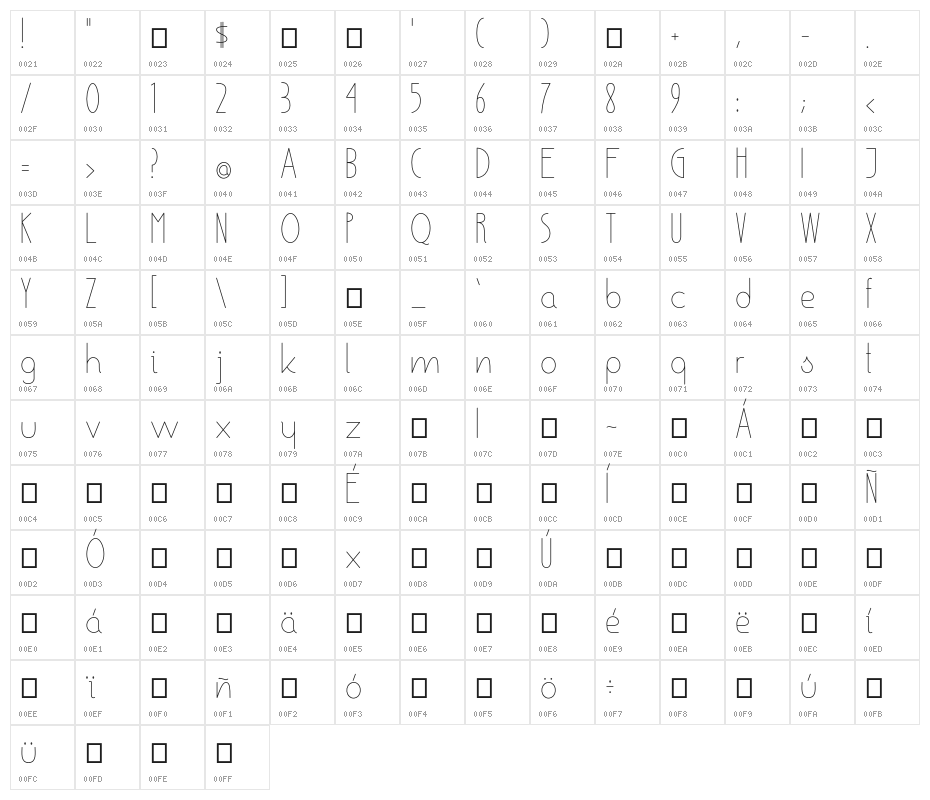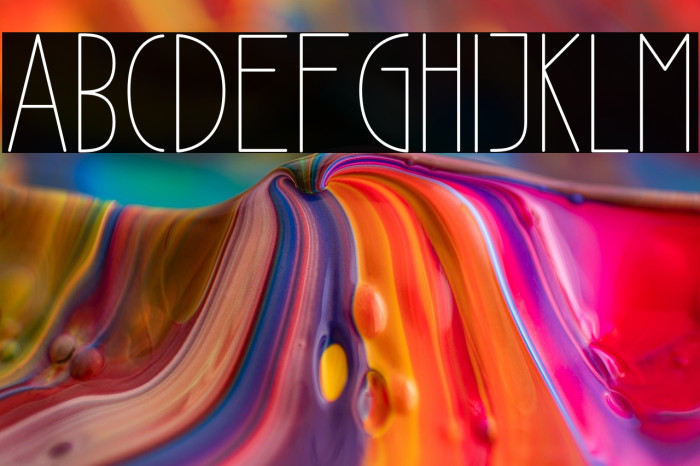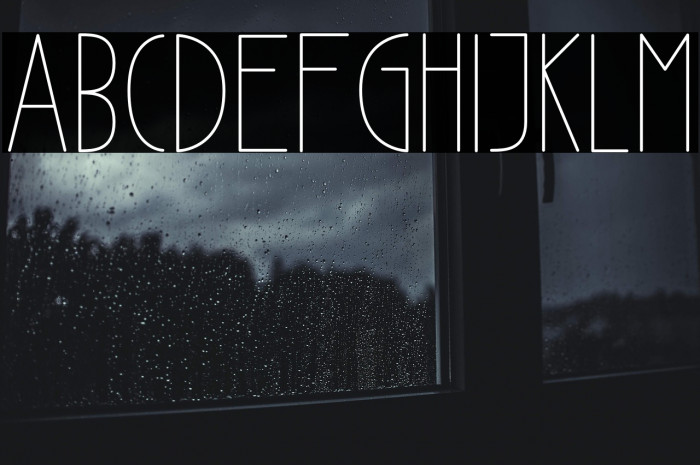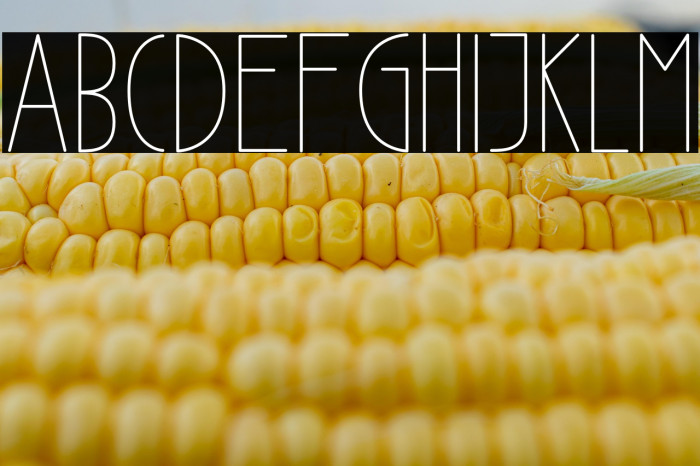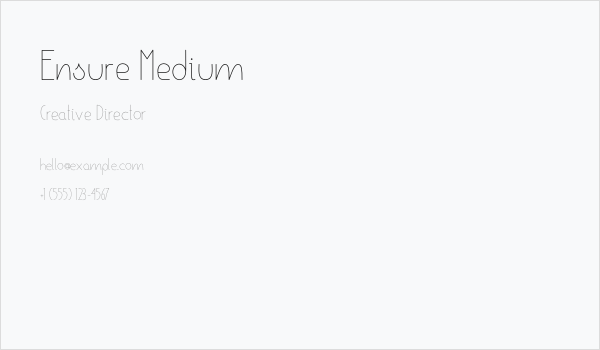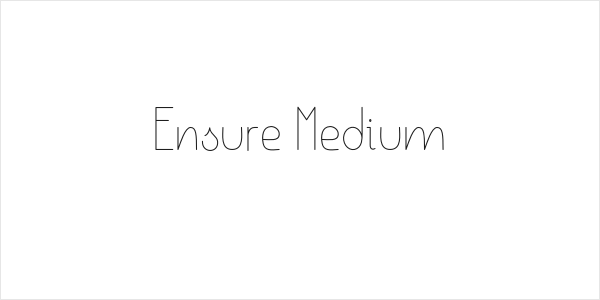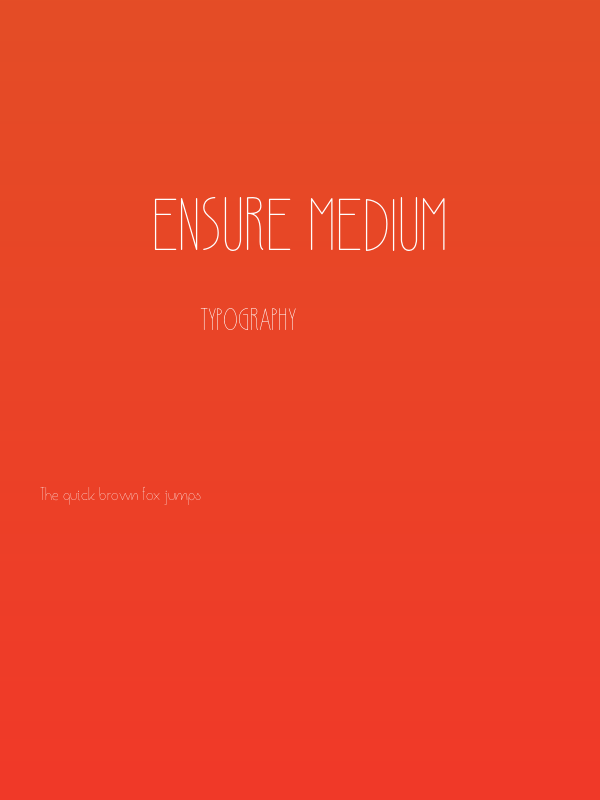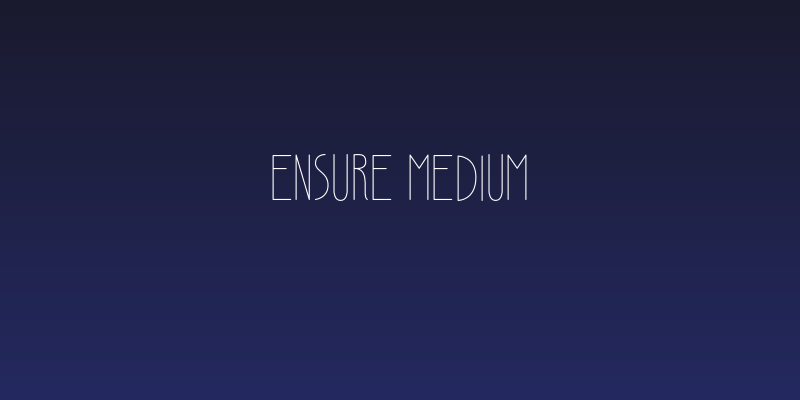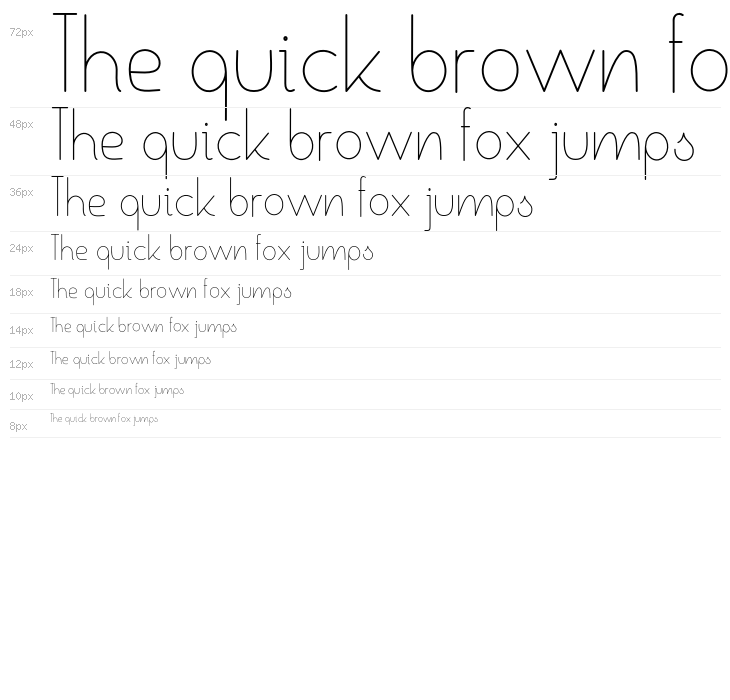
Ensure Medium Font
Ensure Medium Description
This font features a clean and minimalist design with thin, elongated letterforms. The characters are elegantly crafted with a modern aesthetic, emphasizing simplicity and readability. The uppercase letters are tall and narrow, while the lowercase letters maintain a consistent height, creating a harmonious balance. The numerals are equally slender, complementing the overall style. Special characters are distinct yet subtle, fitting seamlessly into the font's refined appearance. This typeface is ideal for projects that require a contemporary and sophisticated look.